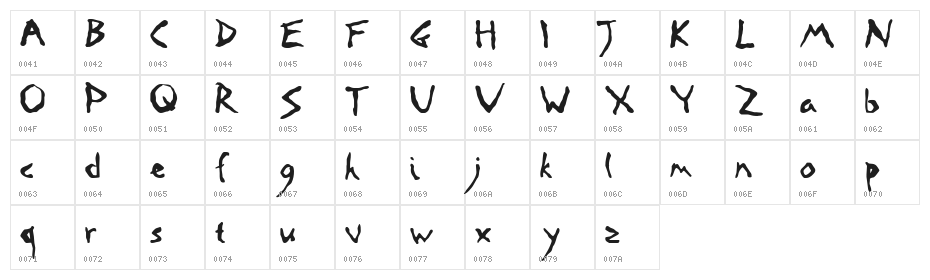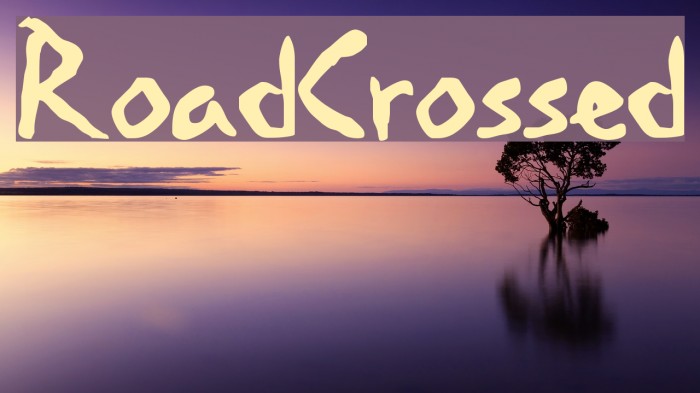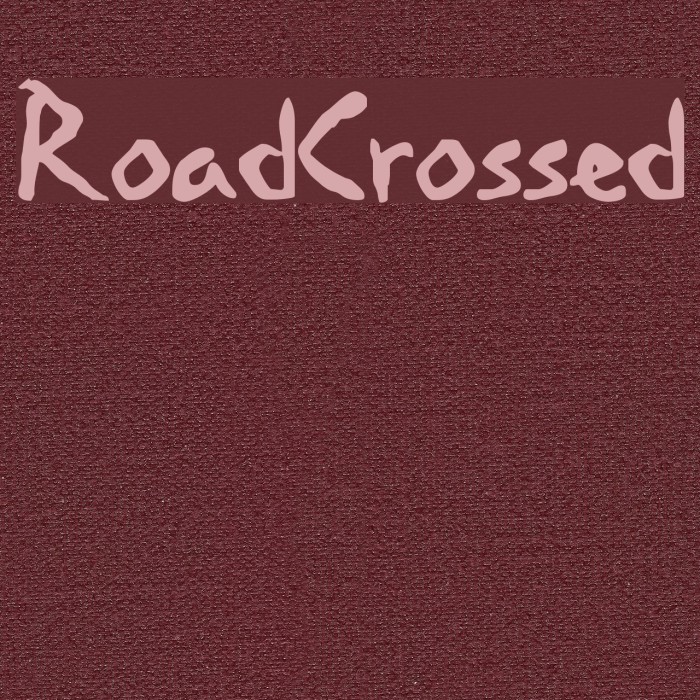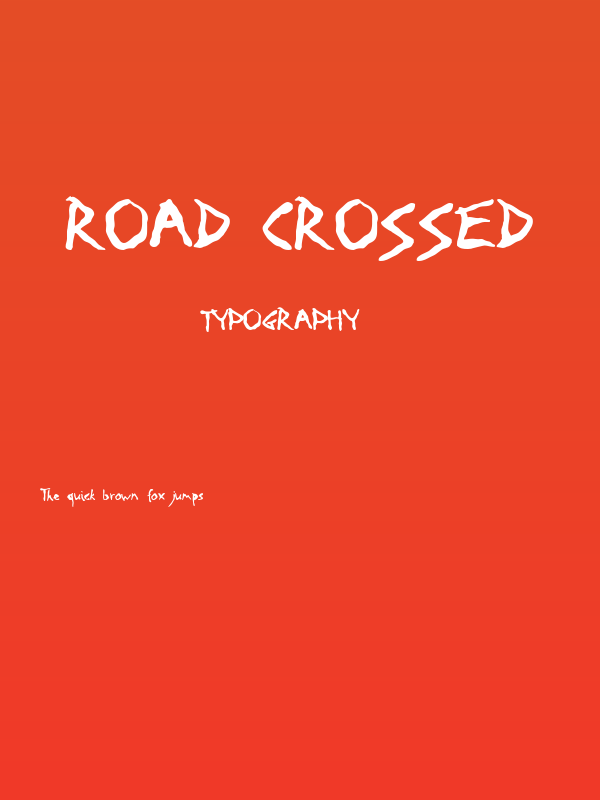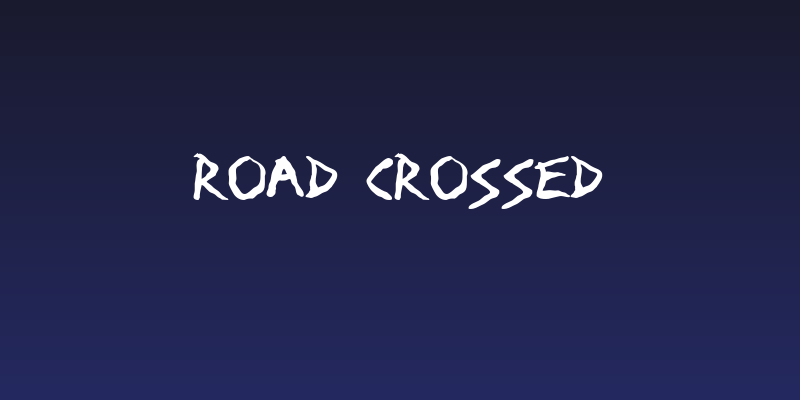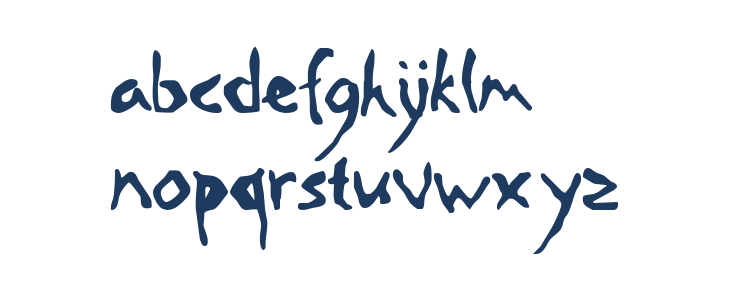
Road-Crossed Font
| Anwendungsfall | Logos, Headlines, Creative projects |
| Vorgeschlagene Projekte | Ideal for street art designs, creative posters, album covers, or any project needing a bold, artistic touch. |